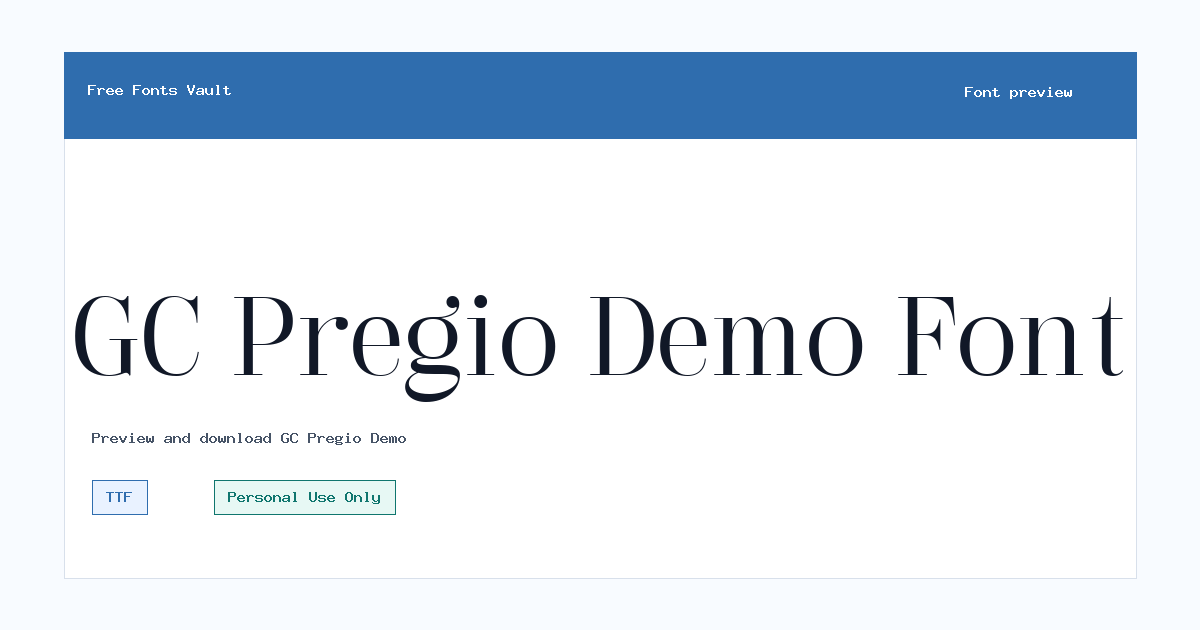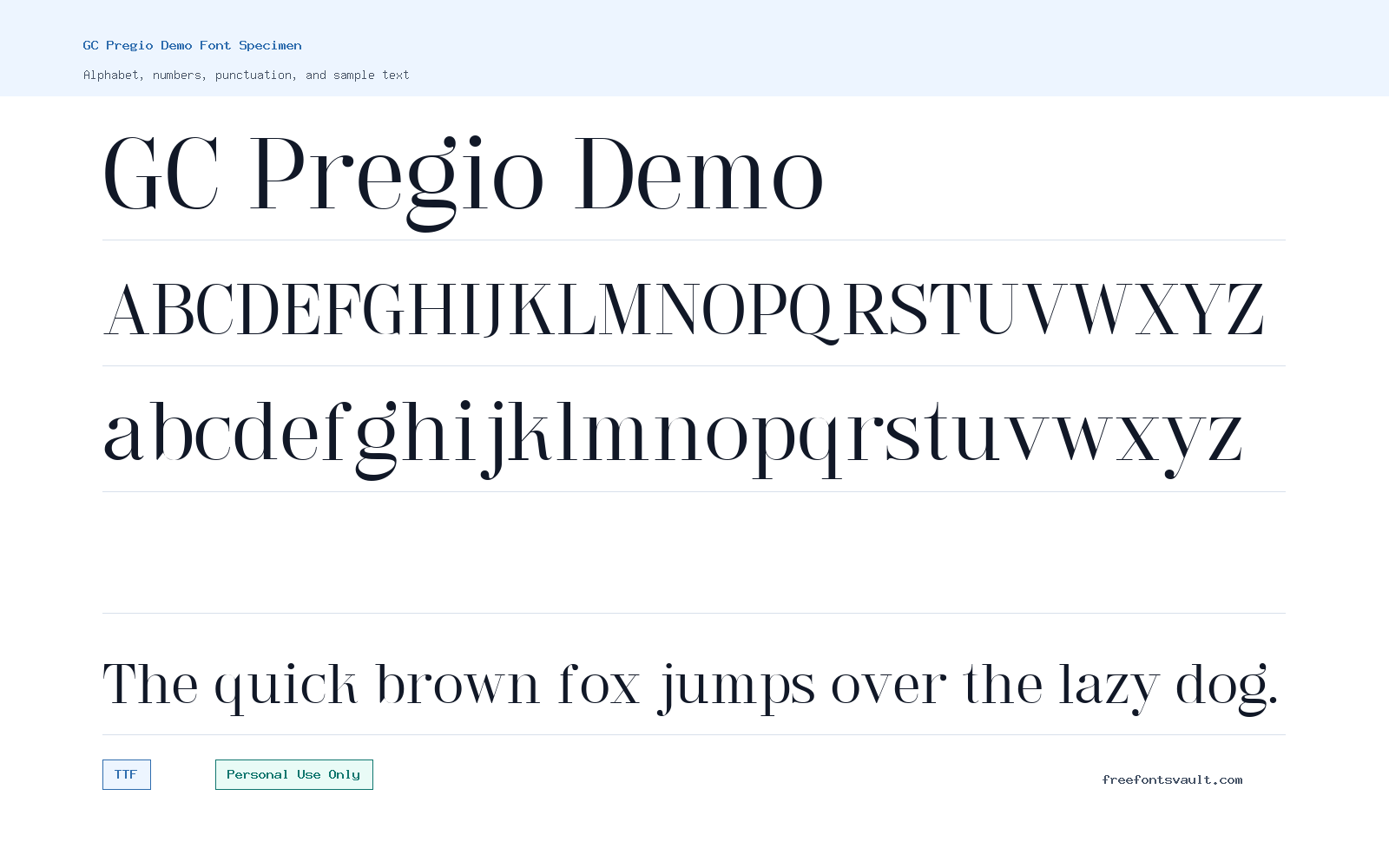
GC Pregio Demo
- Designer Dwi Indah Fadhilatul Amanah of Glyphonic.
GC Pregio Demo is a personal-use serif font family from Glyphonic, credited to Dwi Indah Fadhilatul Amanah. It comes in TTF format with regular and bold weights, making it useful for testing headline ideas, logo drafts, poster text, and visual mockups before choosing a final licensed font.
GC Pregio Demo is best approached as a demo font for design testing rather than a finished commercial-use asset. The family name and license text identify it as a serif font, and the included weights give you a simple two-level setup: regular for lighter text and bold for stronger emphasis. That makes it practical for trying title layouts, brand-name sketches, packaging concepts, invitation-style headings, and editorial display treatments. Since the evidence does not confirm a full character set, multilingual coverage, kerning depth, or OpenType features, it is worth using the preview tool carefully. Type your real project words, not just sample alphabet text, and check how the letters behave in names, short phrases, numbers, punctuation, and mixed-case settings.
For logo work, GC Pregio Demo can be useful in early exploration when you want to test a serif direction with both normal and heavier emphasis. Keep the wording short and inspect spacing between difficult pairs such as AV, To, Wa, and uppercase initials. For posters and web mockups, try the bold weight for main titles and the regular weight for smaller supporting lines, but avoid assuming it will handle long body copy until you test readability at the size you need. If you are designing a website, app screen, social graphic, menu, or brand board, use the font to judge tone and layout first, then confirm licensing before any public or client-facing use. Demo fonts often have limits that are not obvious from the file name alone, so the safest process is to preview, test, and license properly if the design moves beyond personal use.
- Regular and bold weights for simple hierarchy in headings and mockups
- Serif classification indicated by the license naming
- Useful for previewing short display text, brand names, poster titles, and layout concepts
- Logo drafts and brand-name experiments
- Poster headlines and event title mockups
- Editorial-style display text
- Invitation, packaging, and boutique layout concepts
- Web mockups, mood boards, and non-commercial design previews
GC Pregio Demo is credited to Dwi Indah Fadhilatul Amanah of Glyphonic.
Start by previewing the exact words you plan to use. For logo and poster work, compare the regular and bold weights at large sizes and adjust letter spacing if your design software allows it. For web mockups, test the font in headings rather than long paragraphs, because display-oriented serif fonts can lose clarity when used too small. Pair it with a quiet sans serif for menus, captions, and body text so the serif style can stand out in titles. If you need a production-ready brand system, website, packaging design, or printed commercial piece, confirm the commercial license and check whether the final font package includes the language support, punctuation, numbers, and symbols your project needs.
Which weights does GC Pregio Demo include?
GC Pregio Demo includes a regular weight and a bold weight. Use regular for lighter headings or supporting text, and bold when you need stronger emphasis.
Is GC Pregio Demo good for body text?
It is safer to test it first in short text and headings. The font listing do not confirm whether it was designed for long reading, so preview paragraphs at the size you plan to use before relying on it.